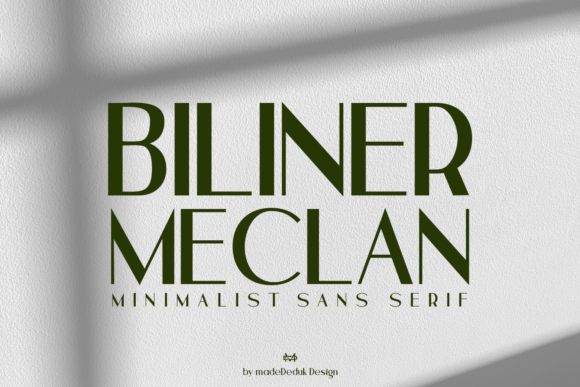
Dive into the world of elegance and sophistication with Biliner Meclan, a captivating sans-serif font family designed to make your designs shine. This modern minimalist font exudes clarity and simplicity, effortlessly elevating your projects with its timeless beauty.
Crafted by the talented madeDeduk, Biliner Meclan boasts sleek lines and balanced letterforms, creating a harmonious visual experience. Its subtle rounded edges infuse a touch of warmth, making it both stylish and inviting. Whether you're crafting headings, captivating body text, or designing logos that leave a lasting impression, Biliner Meclan is the perfect choice.
Immerse yourself in the versatility of Biliner Meclan, a font that seamlessly adapts to a myriad of design ventures. Its clean lines and neutral presence make it the ideal companion for fashion design, where elegance and sophistication reign supreme. Unleash your creativity and envision your designs taking center stage, adorned with the allure of Biliner Meclan.
Experience the magic of Biliner Meclan and transform your designs into masterpieces. Its charm and sophistication will captivate your audience, leaving them in awe of your creative genius. Embrace the power of simplicity and let your designs speak volumes with the timeless beauty of Biliner Meclan.